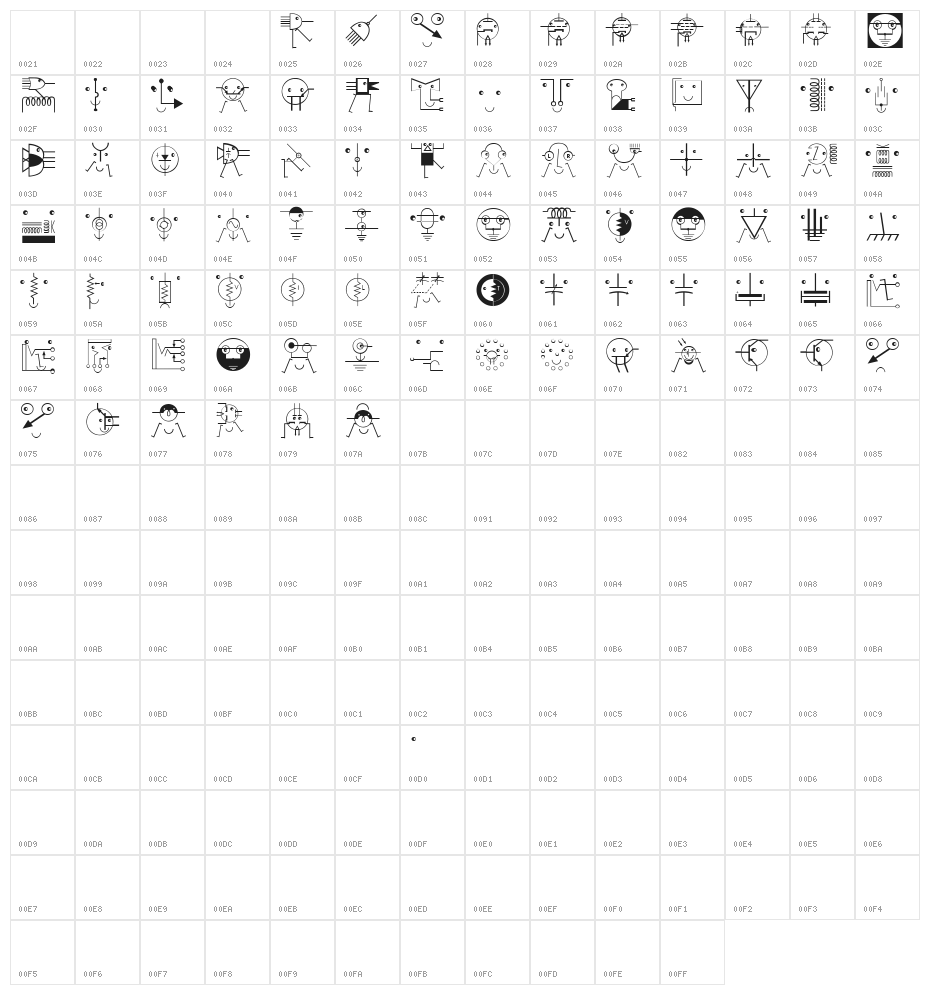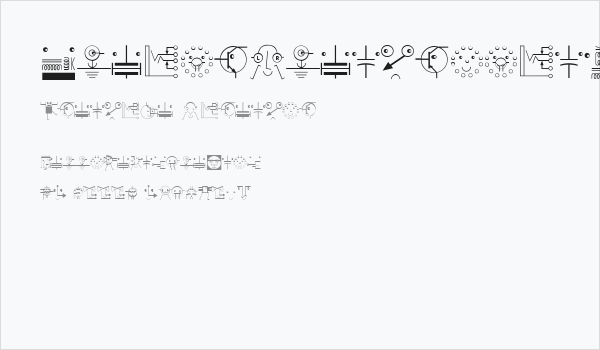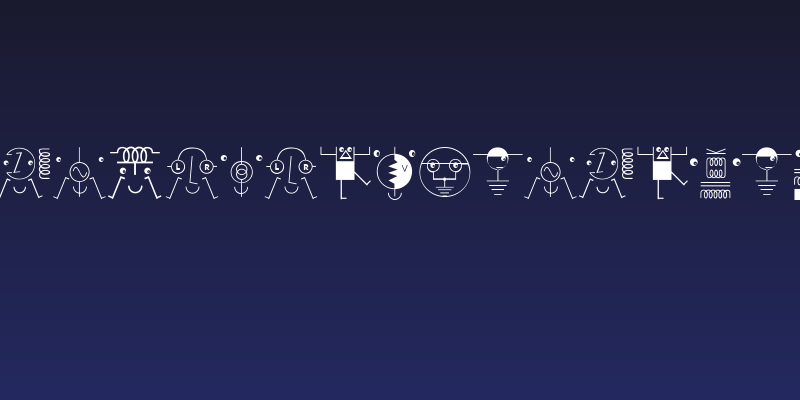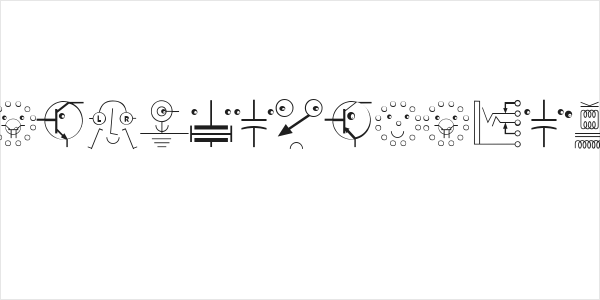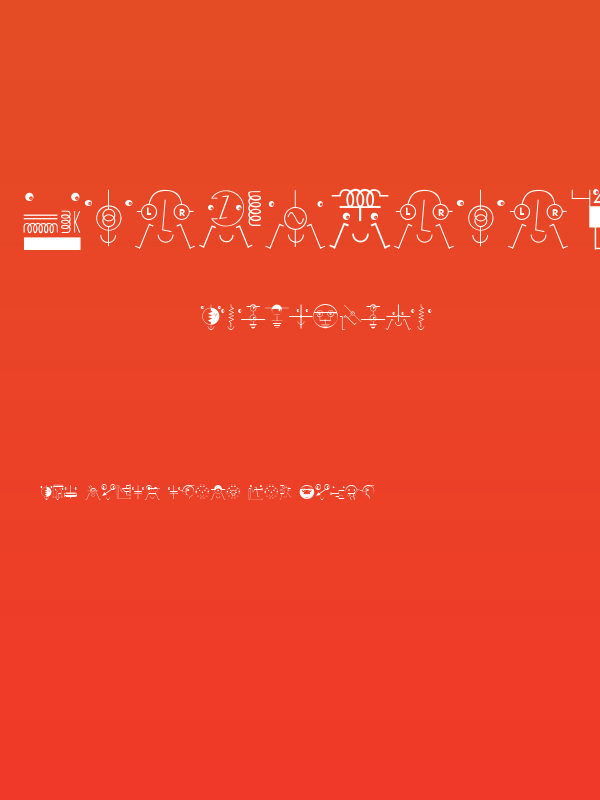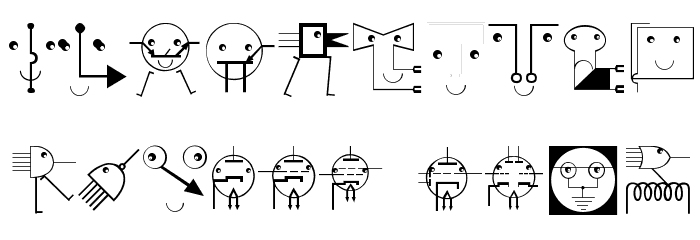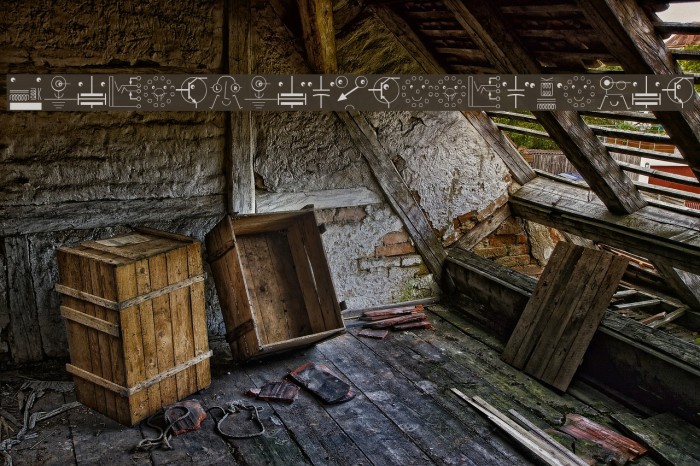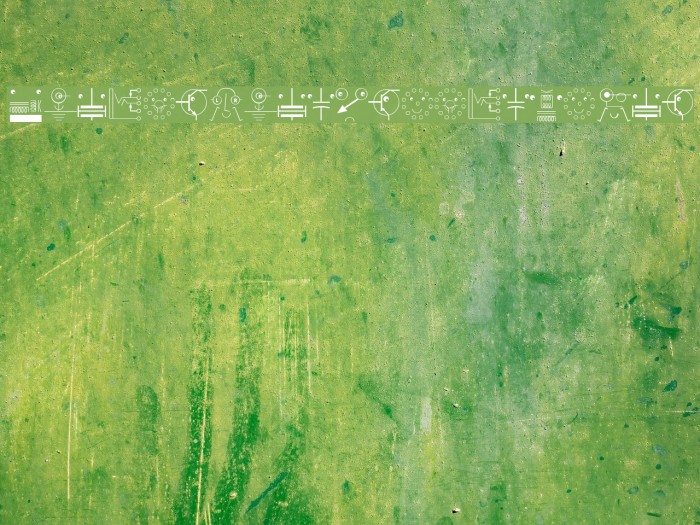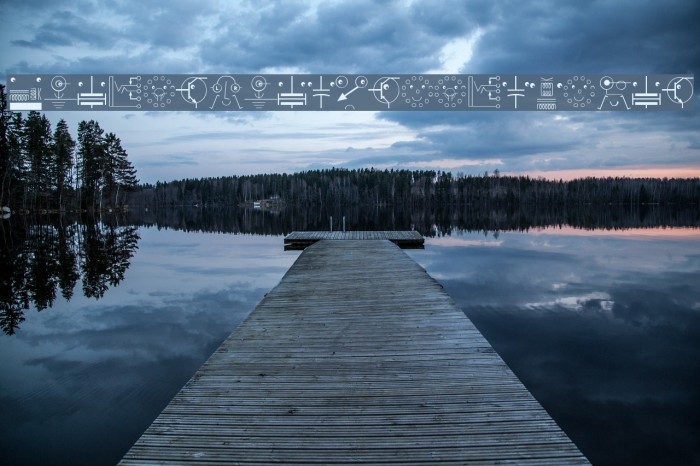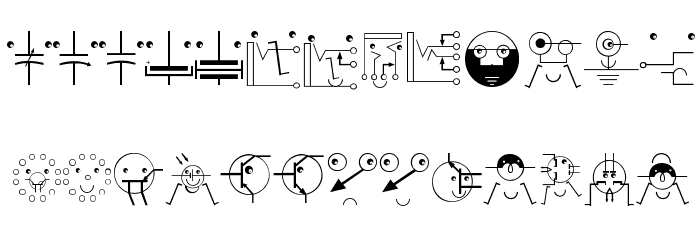
KleinsElectronicJokes Font
KleinsElectronicJokes Description
This is a highly creative and whimsical font that incorporates electronic and circuit-like elements into each character. The design features playful and abstract representations of electronic components, giving each letter a unique and humorous personality. The characters are composed of lines, circles, and geometric shapes that mimic electrical diagrams, making it visually intriguing and engaging. This font is not suitable for traditional text but serves as a decorative and artistic representation of letters and symbols. It is ideal for projects that require a tech-inspired or futuristic aesthetic with a touch of humor.
| Overall Style | Futuristic, Playful |
| Use Case | Logos, Posters, Artistic Displays |
| Proposed Projects | Ideal for tech-themed posters, creative branding, educational materials on electronics, and playful graphic design projects. |